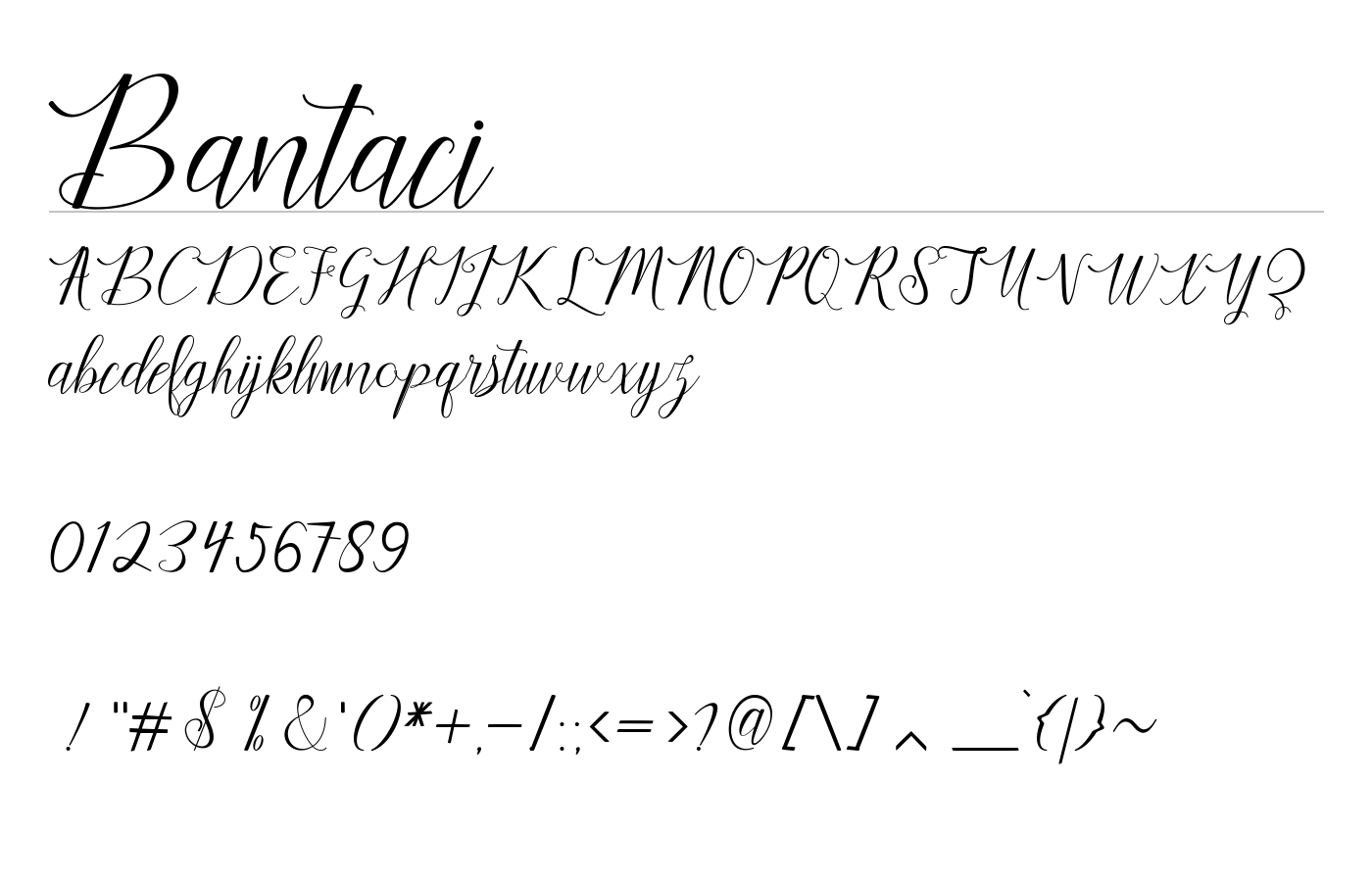
Bantaci is an elegant script font featuring fine, flowing strokes with delicate contrasts that give it a refined and graceful appearance. Its slender, cursive letterforms with subtle flourishes make it ideal for sophisticated branding, invitations, and decorative designs where a touch of classical beauty and charm is desired. This font works best in large display settings, lending a sense of luxury and artistry to headlines, logos, and creative projects.
Bantaci Font